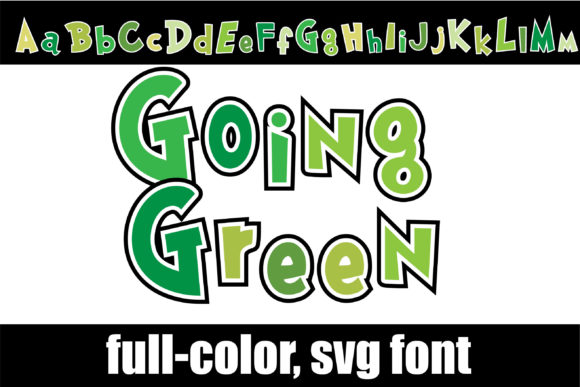
Unleash Your Creativity with Going Green Font: A Vivid Journey into the World of SVG Design
Dive into a realm of boundless creativity with Going Green Font, the ultimate font collection for SVG designers. This captivating font family, brought to you by Illustration Ink, embodies a spirit of youthfulness and whimsy, inviting you to add a touch of vibrancy to your digital creations.
Going Green Font features an array of mesmerizing green letters, each brimming with life and personality. The second version of each letter, accessible through your system's character map, opens up endless possibilities for customization. Experiment with different combinations to craft unique designs that reflect your individuality.
Step into a world of infinite possibilities with Going Green Font. Let your imagination run wild as you explore the depths of SVG design. Create designs that resonate with your audience, leaving a lasting impression that sets you apart from the crowd.
Don't miss out on the opportunity to elevate your creative endeavors with Going Green Font. Embrace the beauty of color and embark on a journey of self-expression like never before.